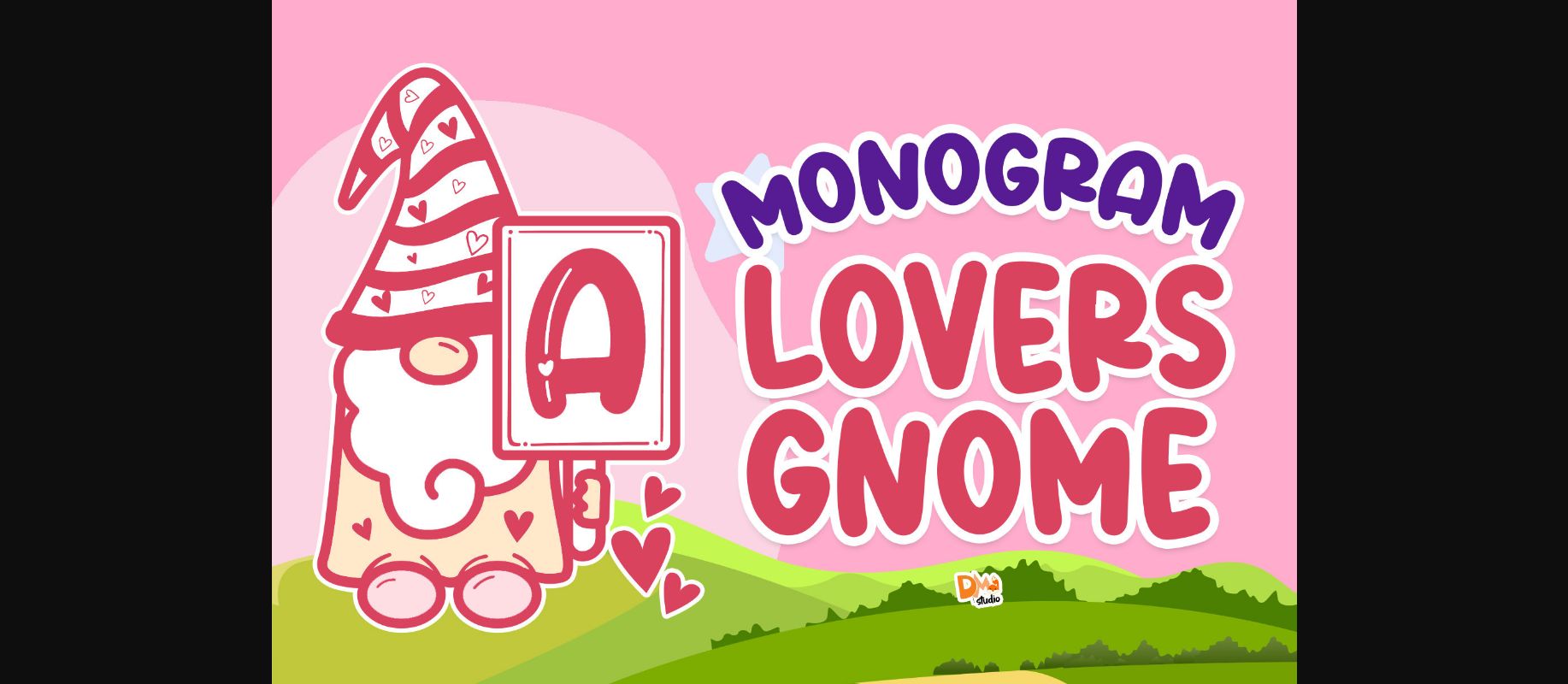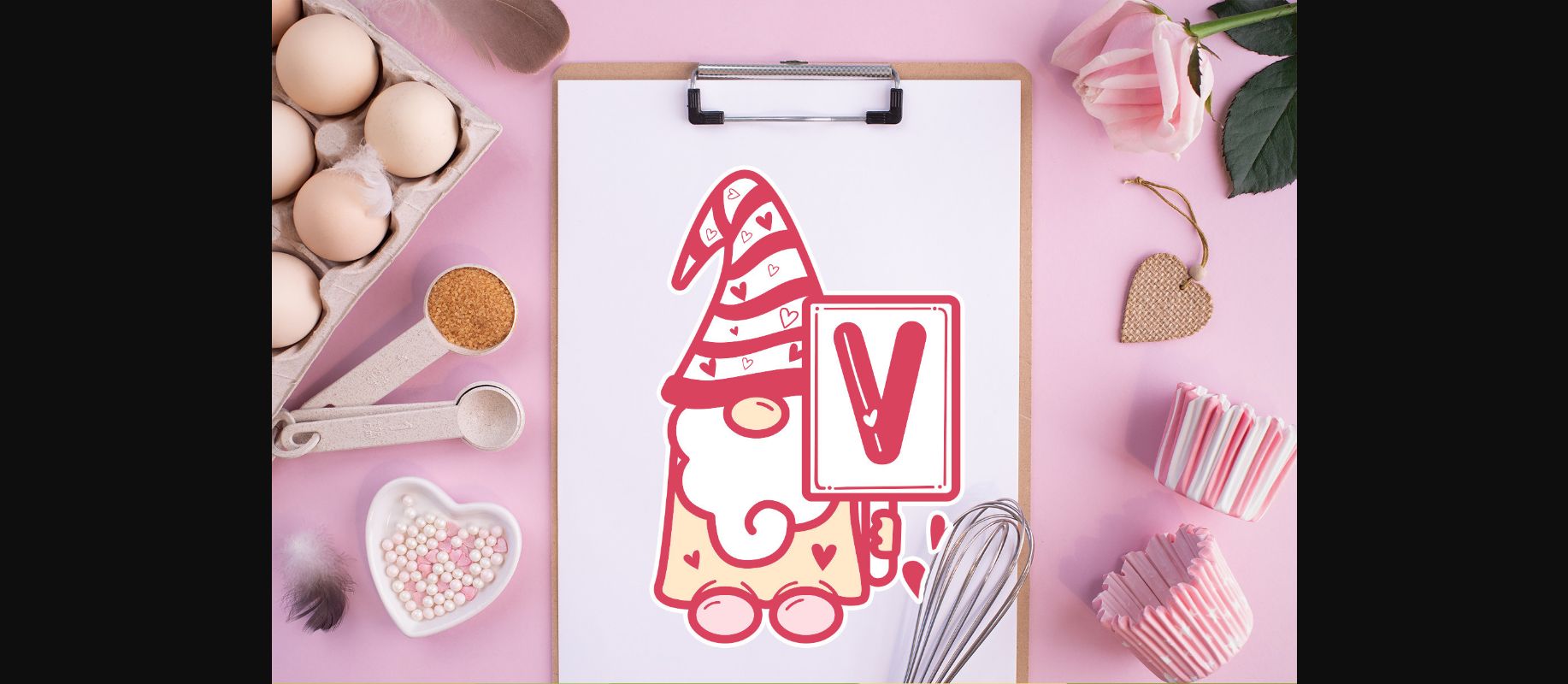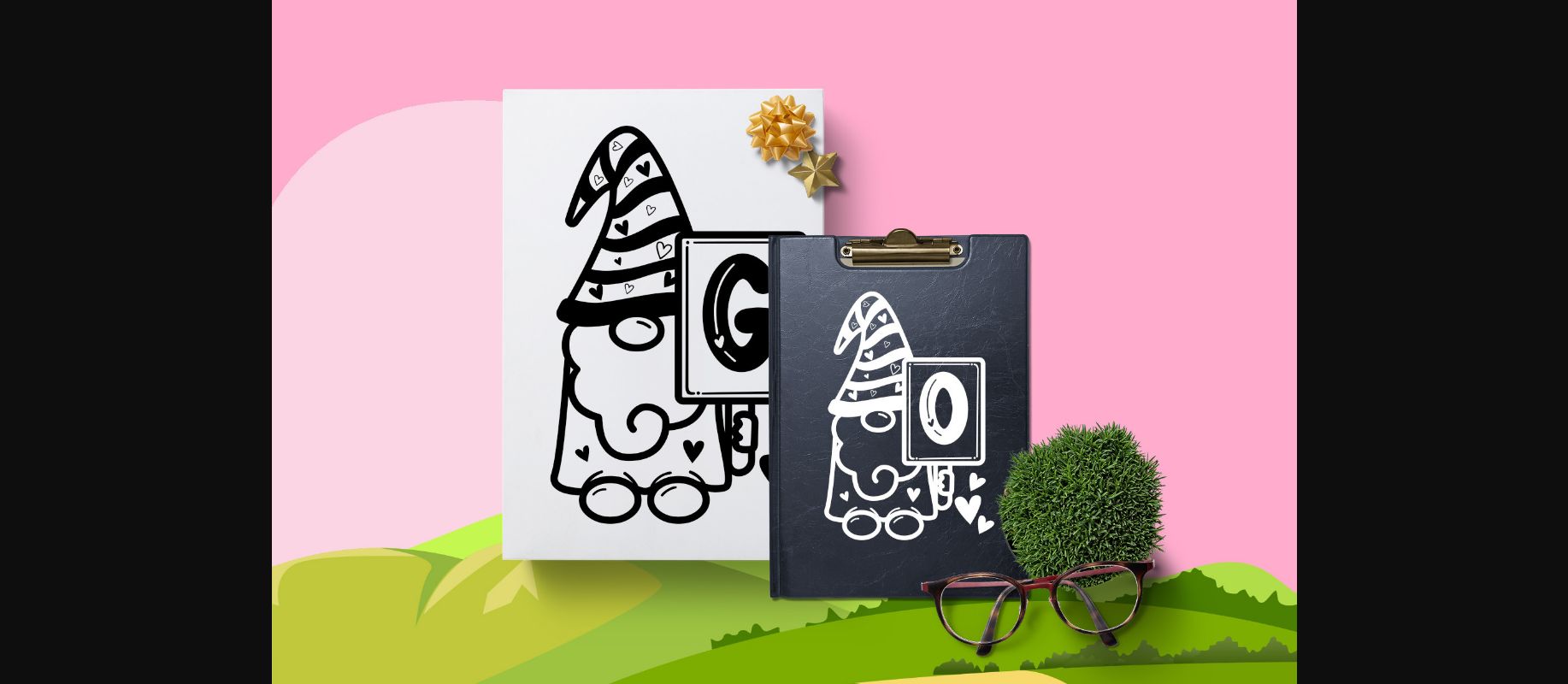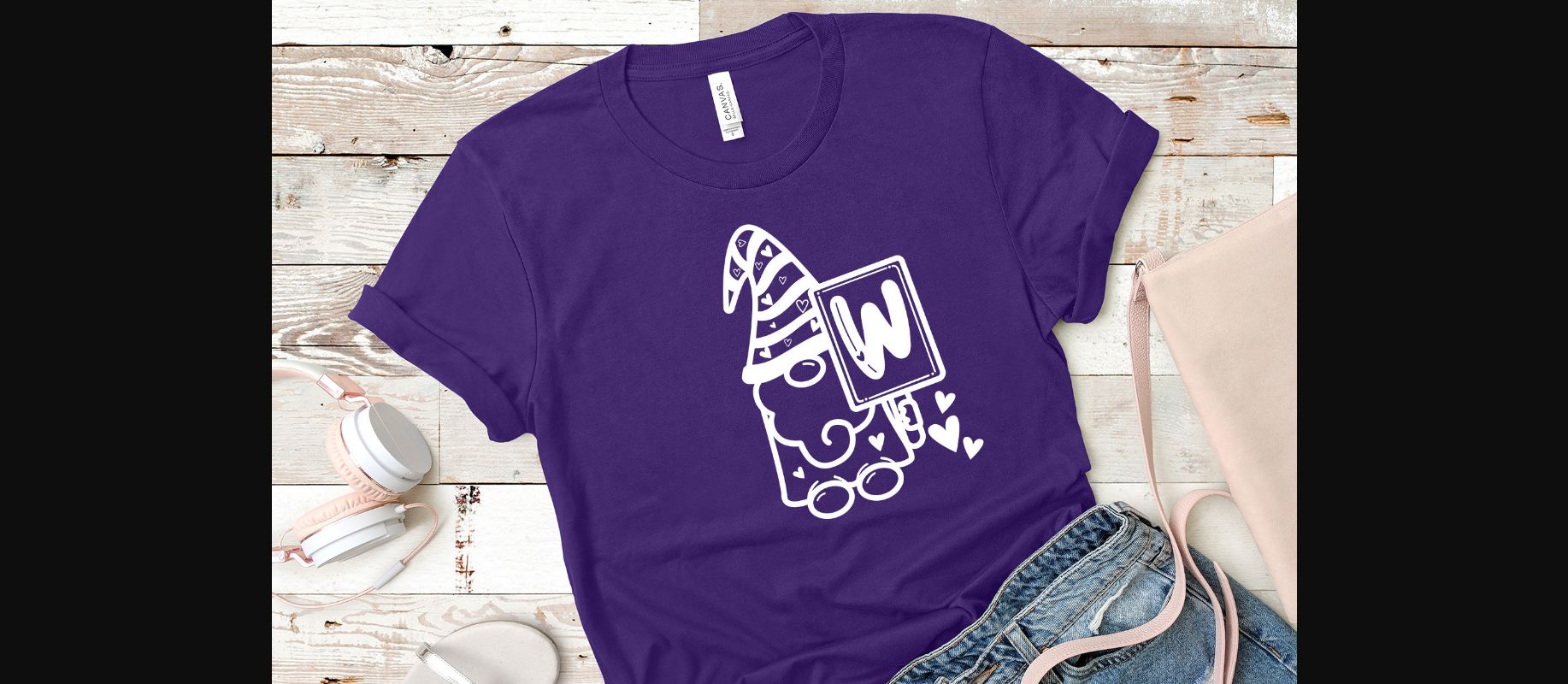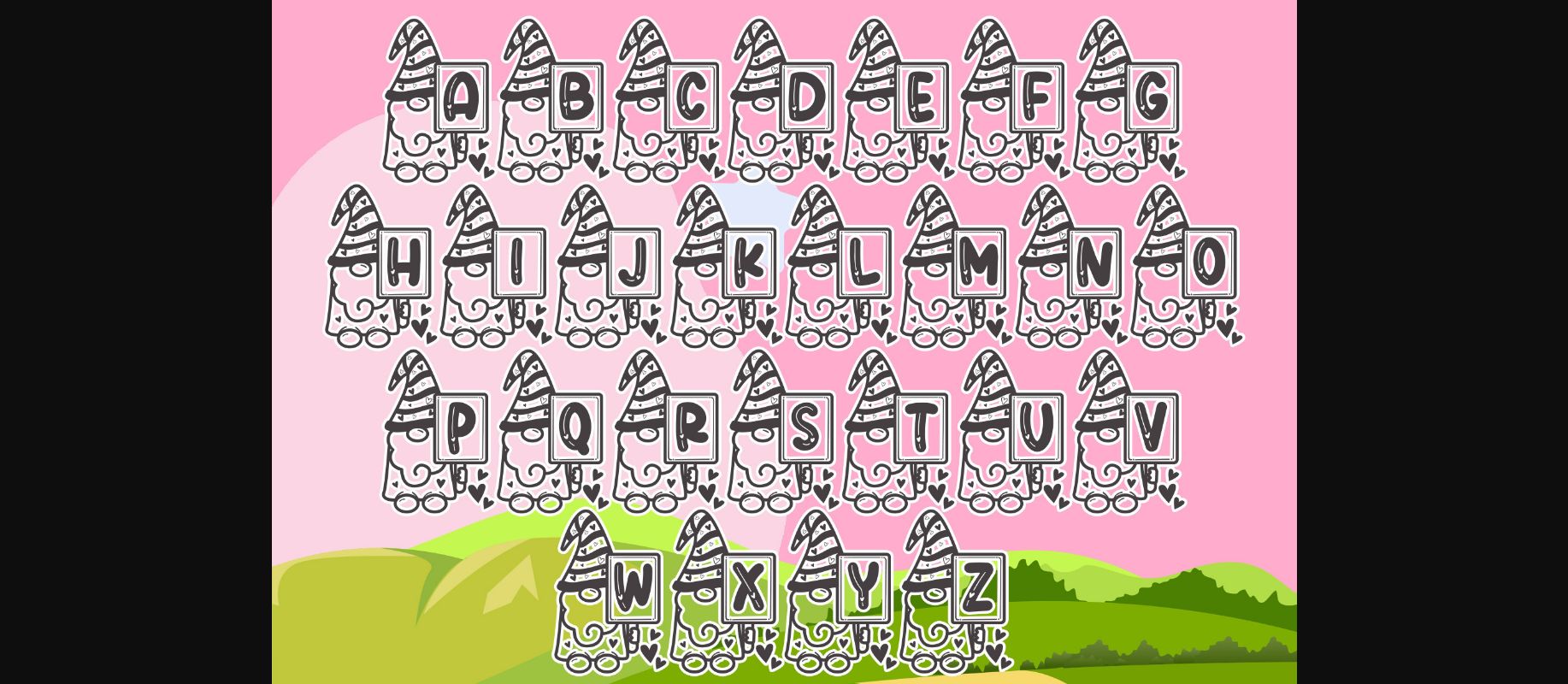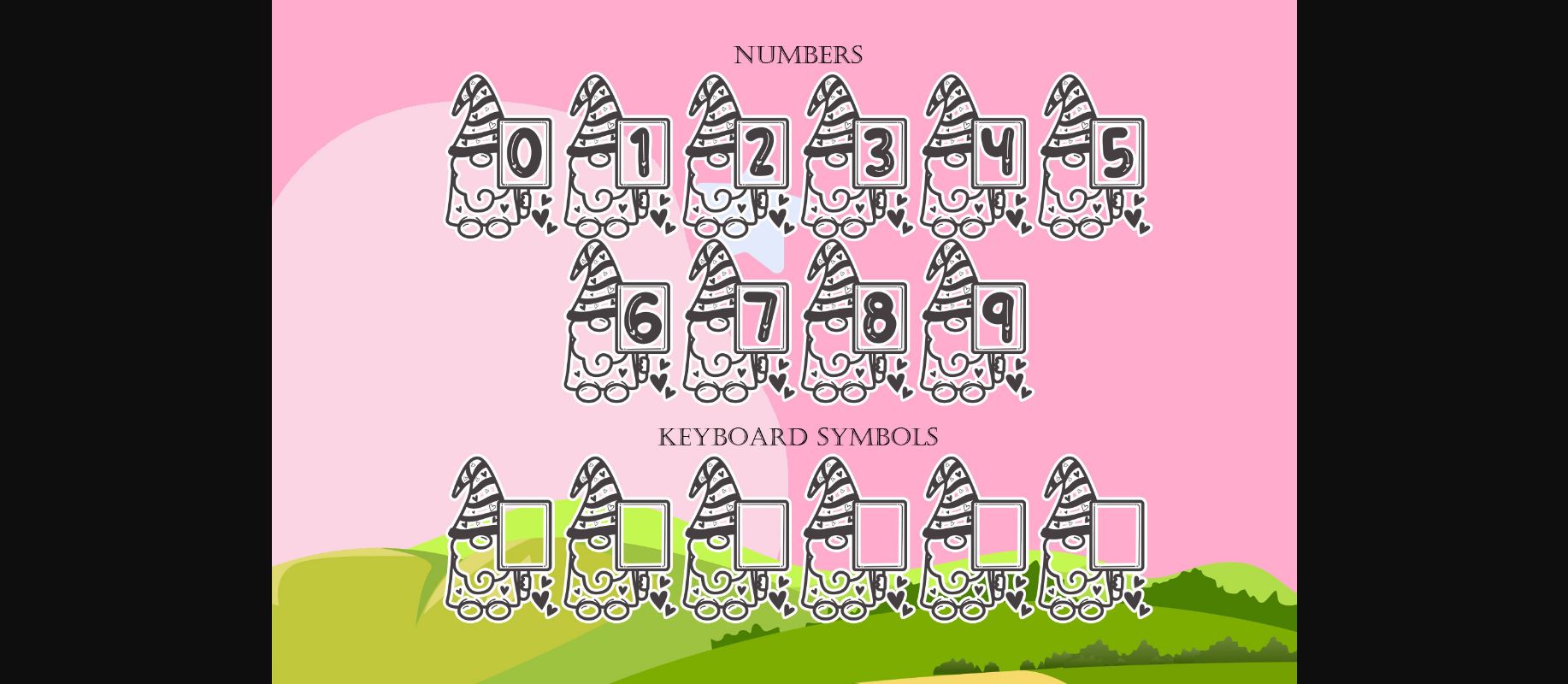
Monogram Lovers Gnome Font
About Monogram Lovers Gnome Font
Monogram Lovers Gnome is a cute, jolly and unique decorative font. Whether you use it for cartoon related designs, children games or just any creation that requires a lovely touch, this font will be an amazing choice.